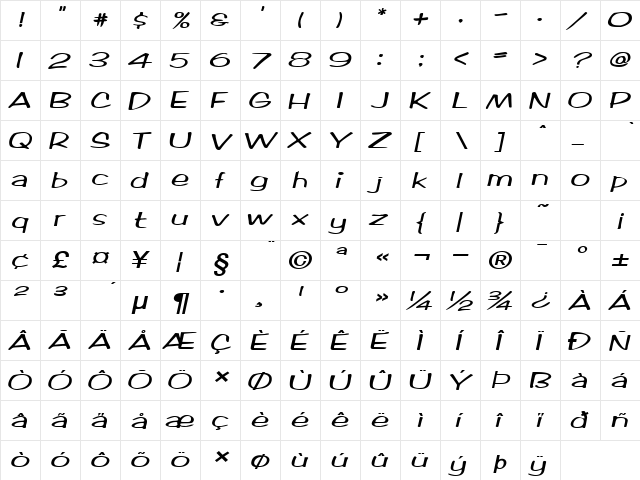
MarloExtended Bold Italic Font Preview
Design Context for MarloExtended Typeface
MarloExtended takes a measured approach to typography — its balanced proportions and neutral character make it a reliable workhorse for both digital and print work. The dynamic lean of this cut emphasises speed and emphasis in any layout. Its bold stroke weight gives it real presence on the page.
Pro Tip: Try MarloExtended for annotation and caption copy alongside an upright companion — the contrast in angle creates a dynamic but ordered typographic system.